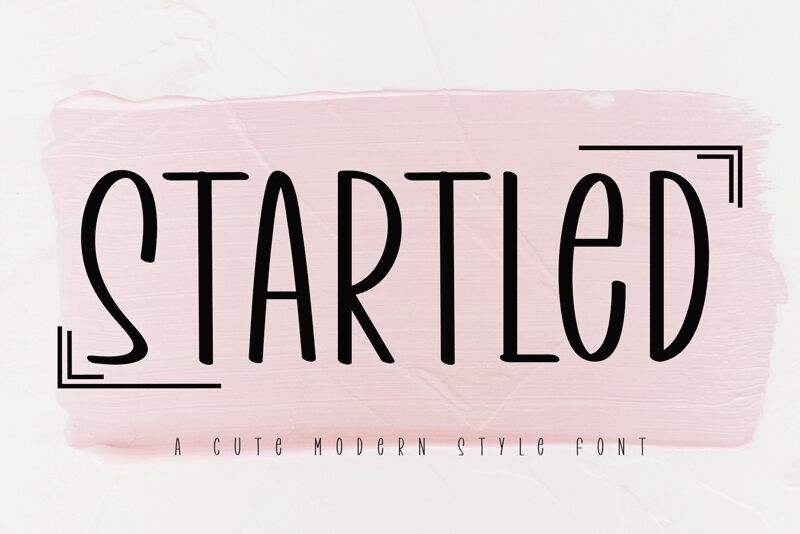
Startled
Startled font by Creatype Designer blends rounded features with condensed thickness, uniform height, and a casual presence to catch the attention of any audience. Combined with the free handwritten style, the fun letters give a modern feel while looking slightly similar to original sans-serif letter designs.
Use this wonderful font in headings for magazines or books as well as in typographic logos and packaging design. App design projects and social media posts can also benefit from its fancy letters for levels or content writing.